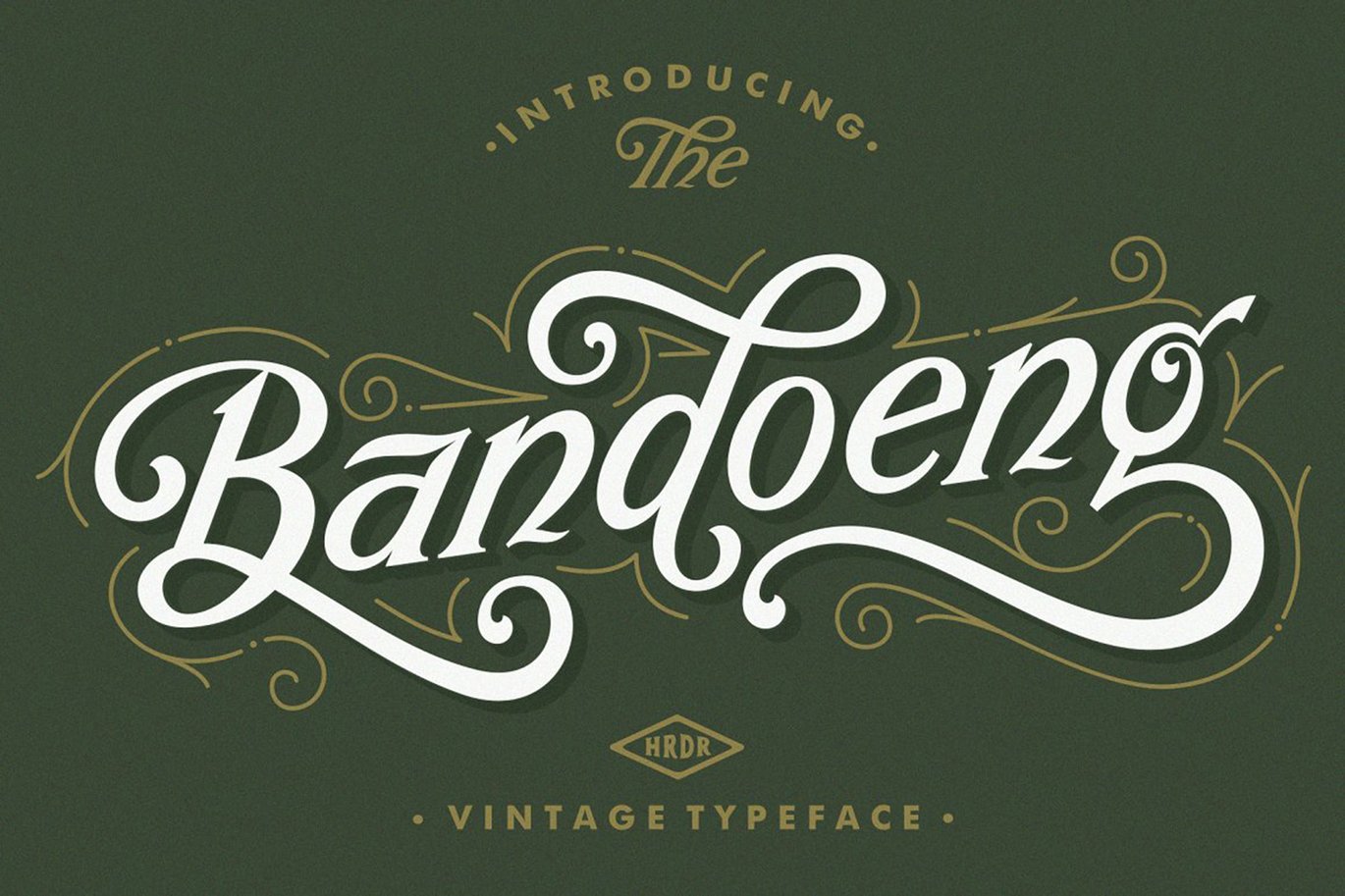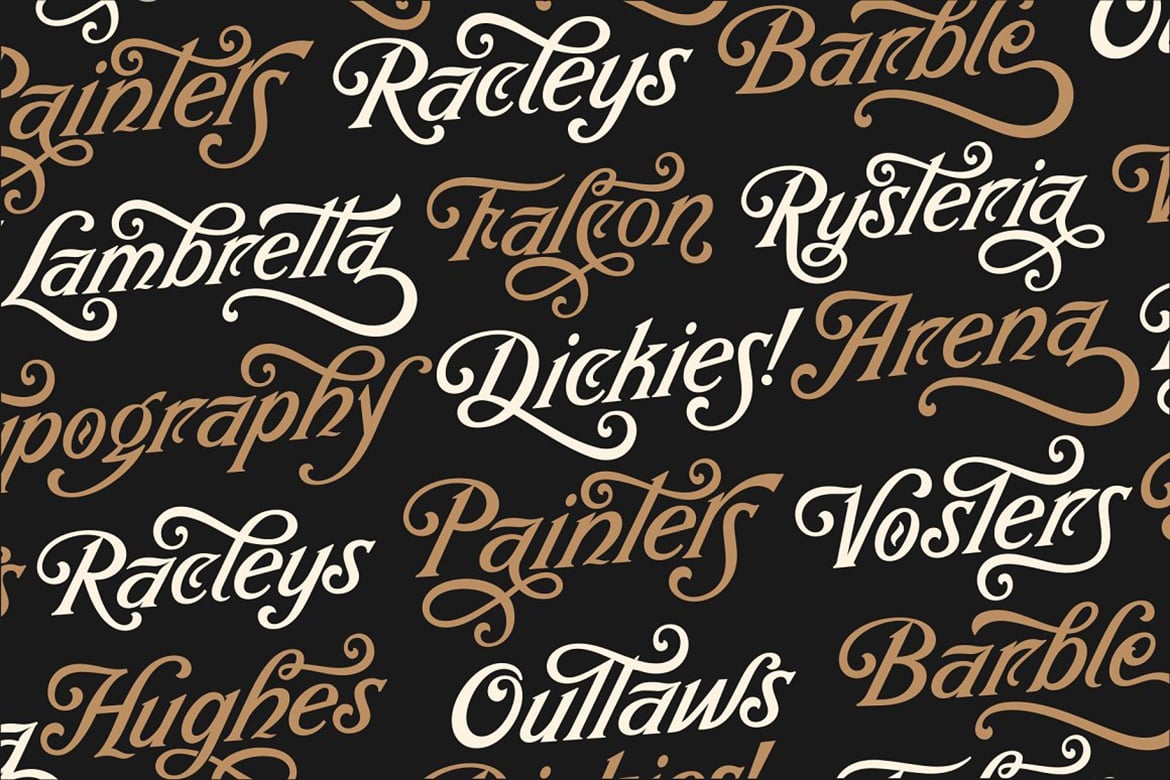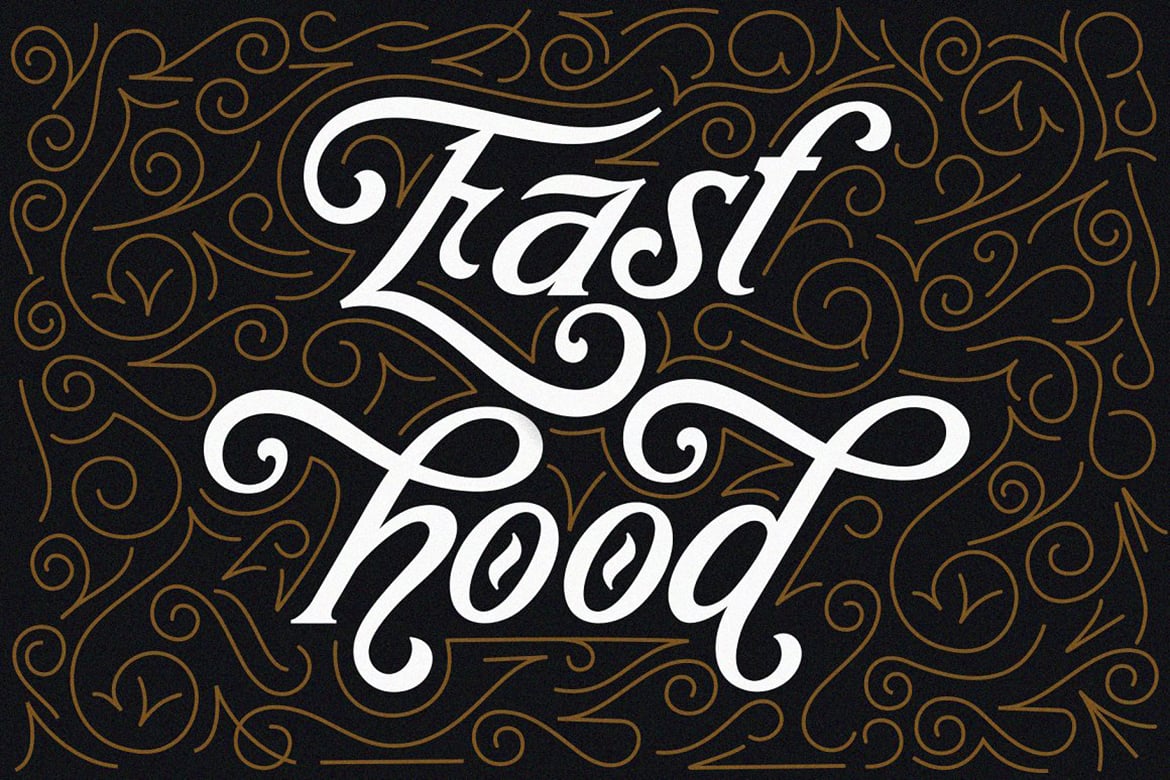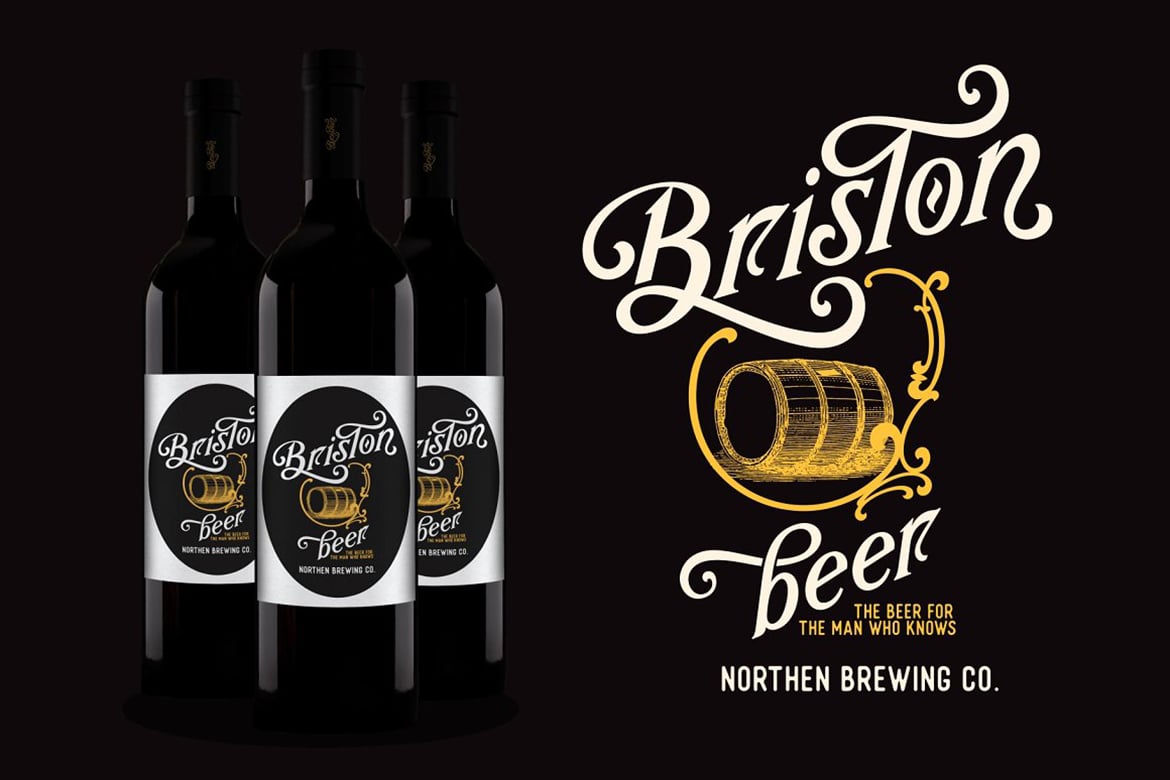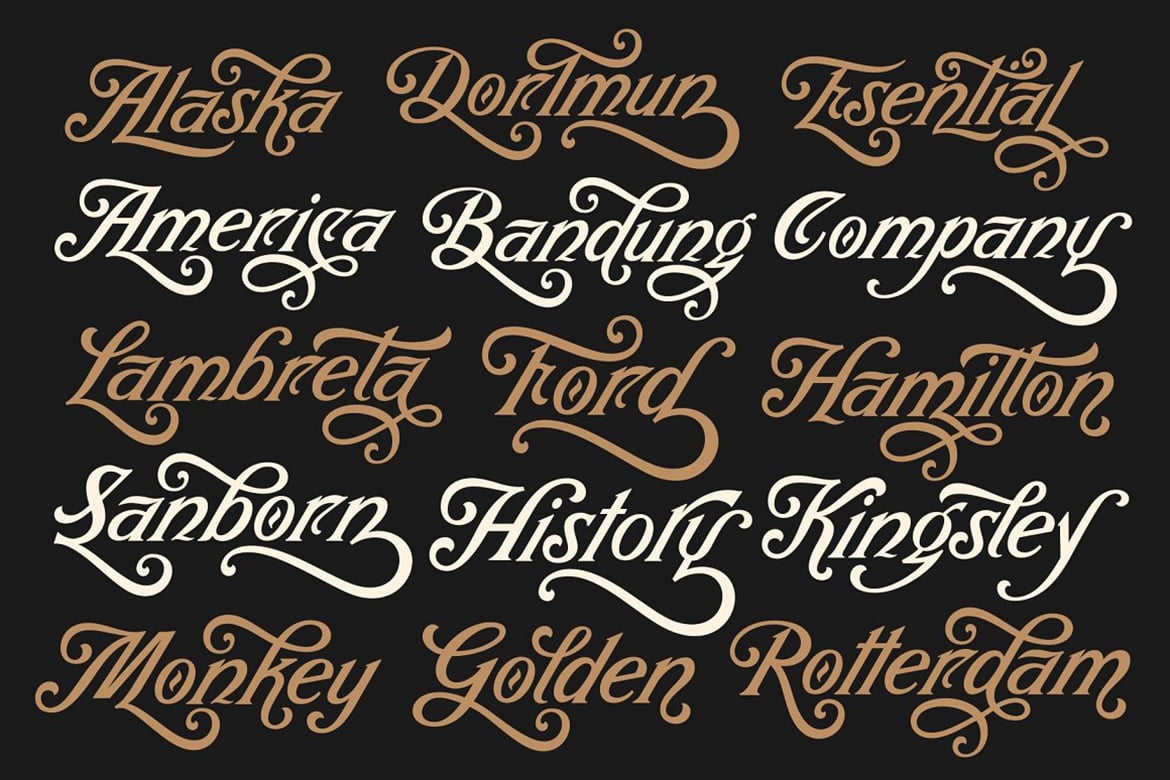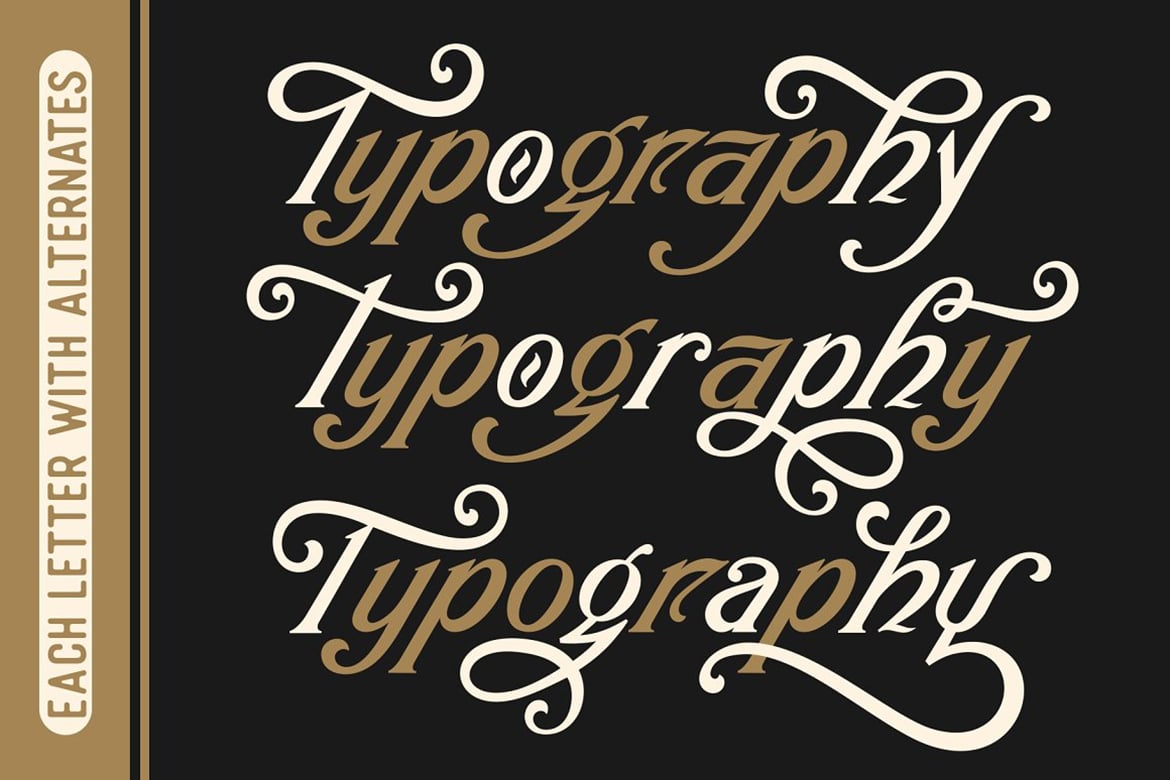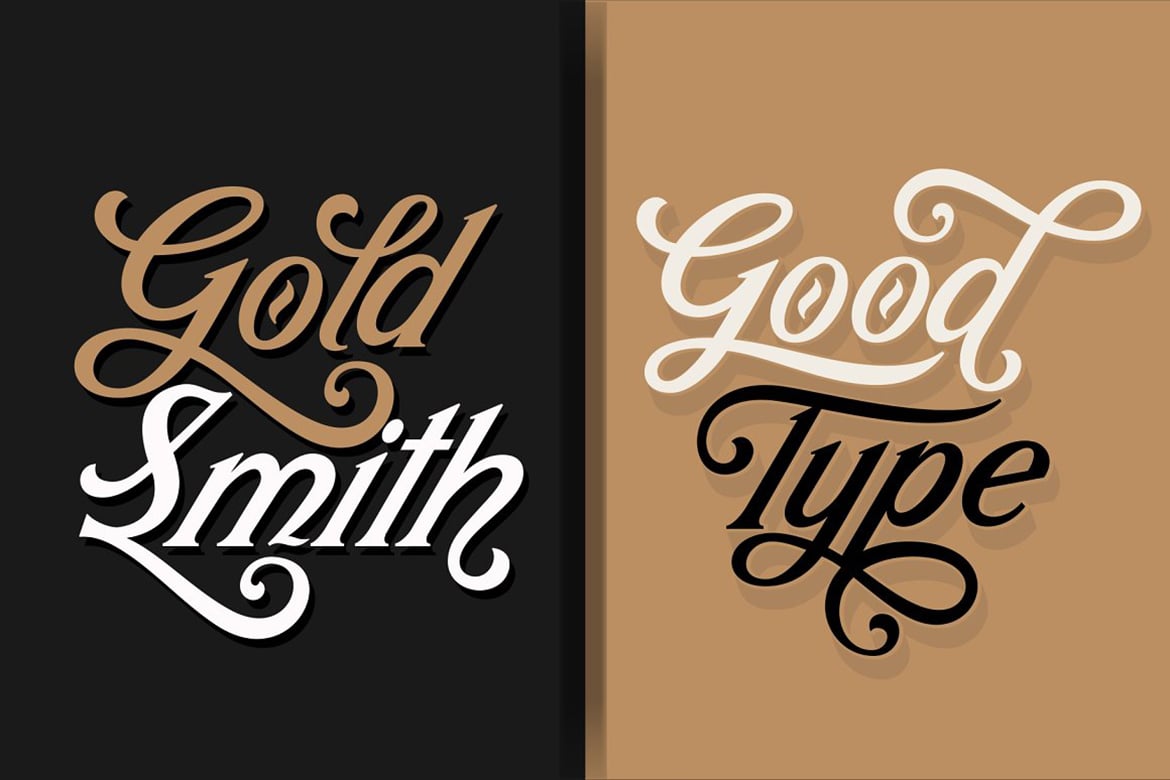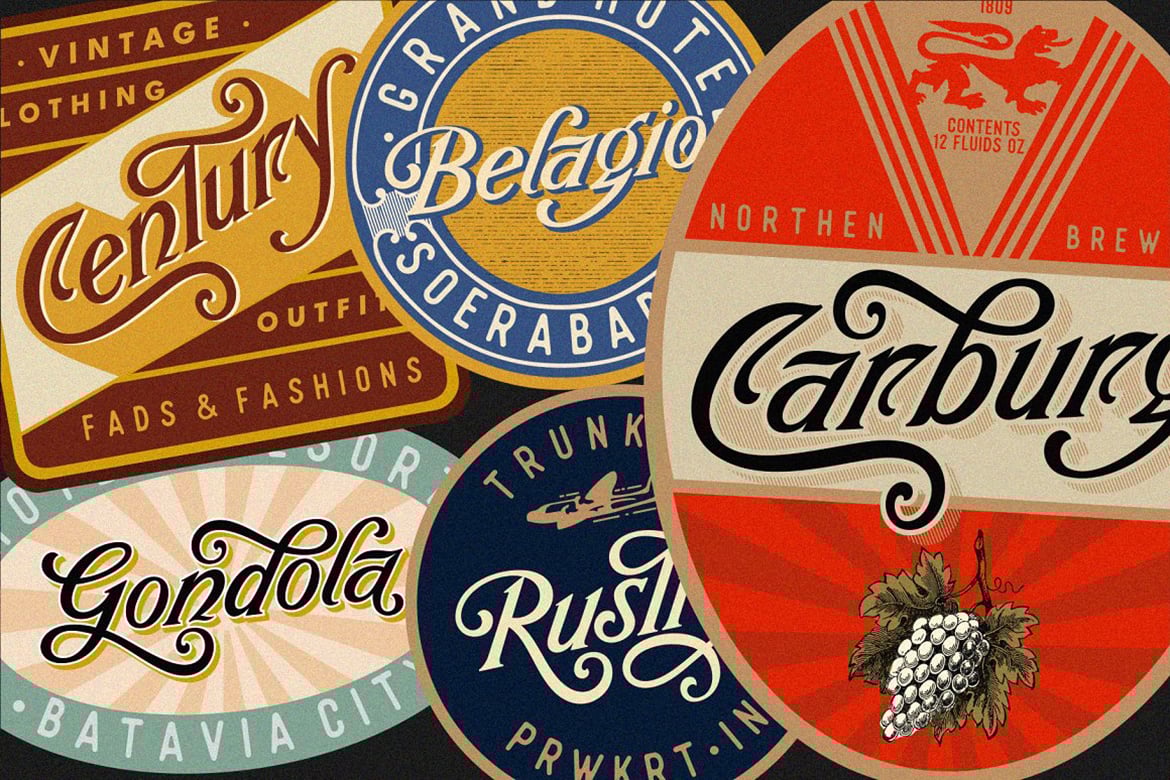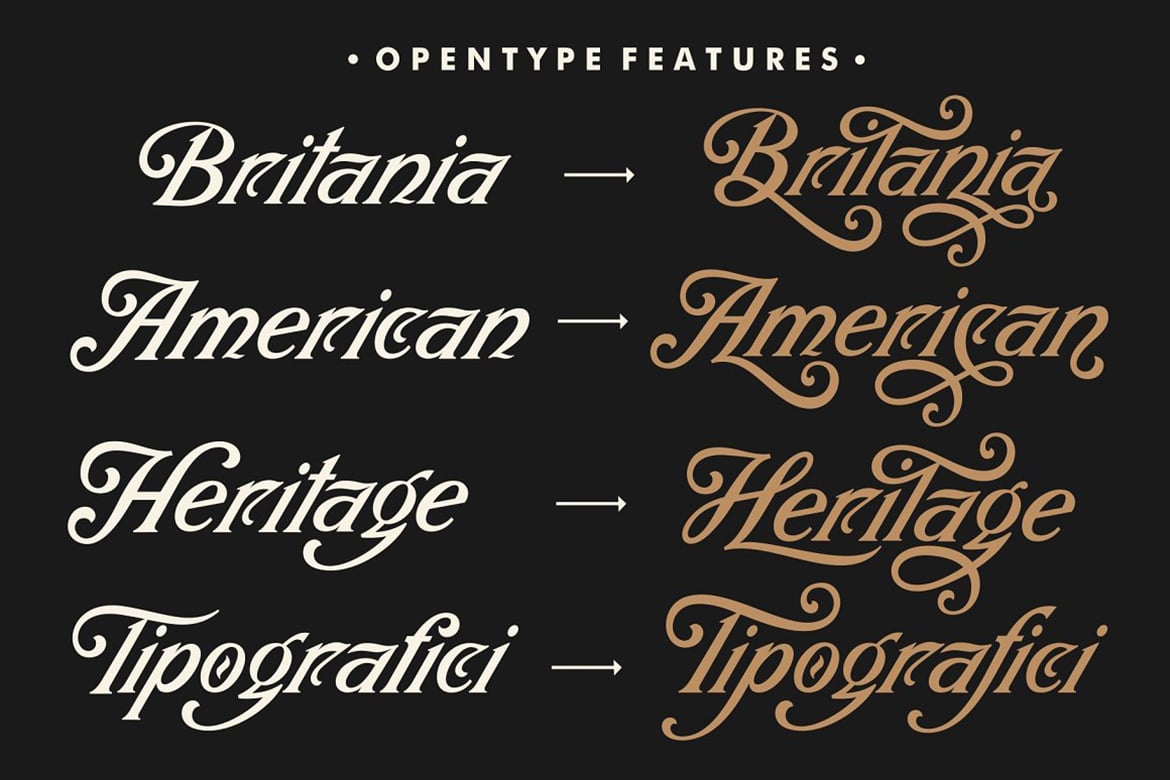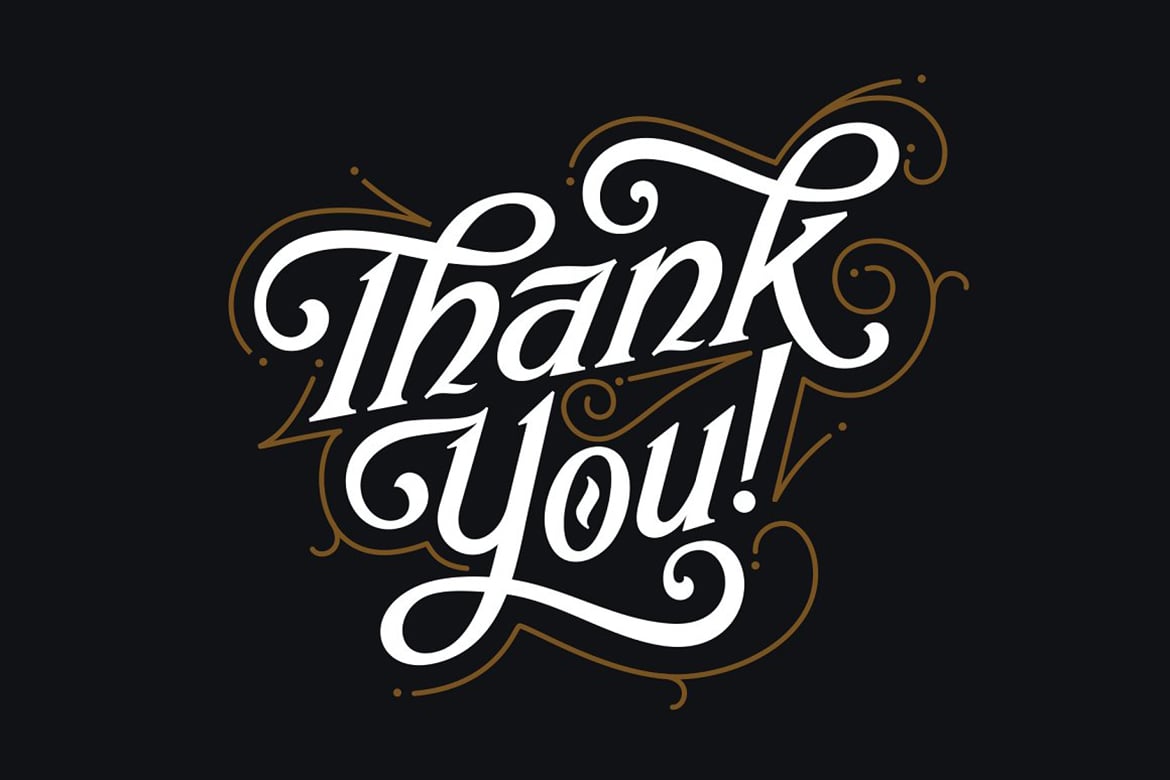
Bandoeng – Vintage Font
Bandoeng Font was inspired by the cover of the 1920 Nebiolo book. It is perfect for product logo, signage, branding projects, headlines, posters, packaging, clothing brand logos, Vintage design and much more.
A wide range of standart ligatures, alternate characters, as well as four different weights allow unique design options!
Bandoeng Font comes with uppercase, lowercase, numerals, punctuation and many variations on each character, including OpenType alternates to let you customize your designs.